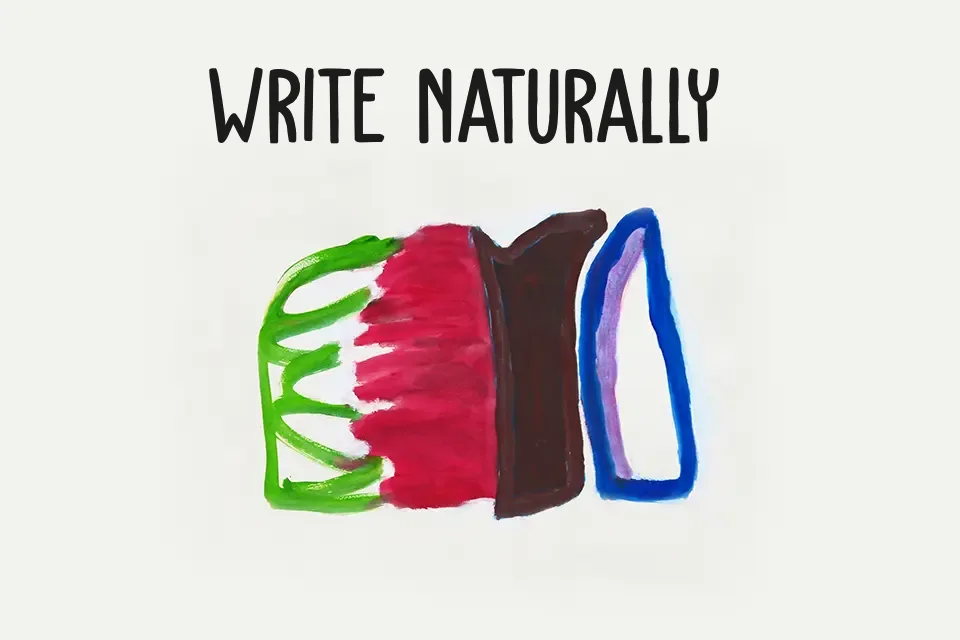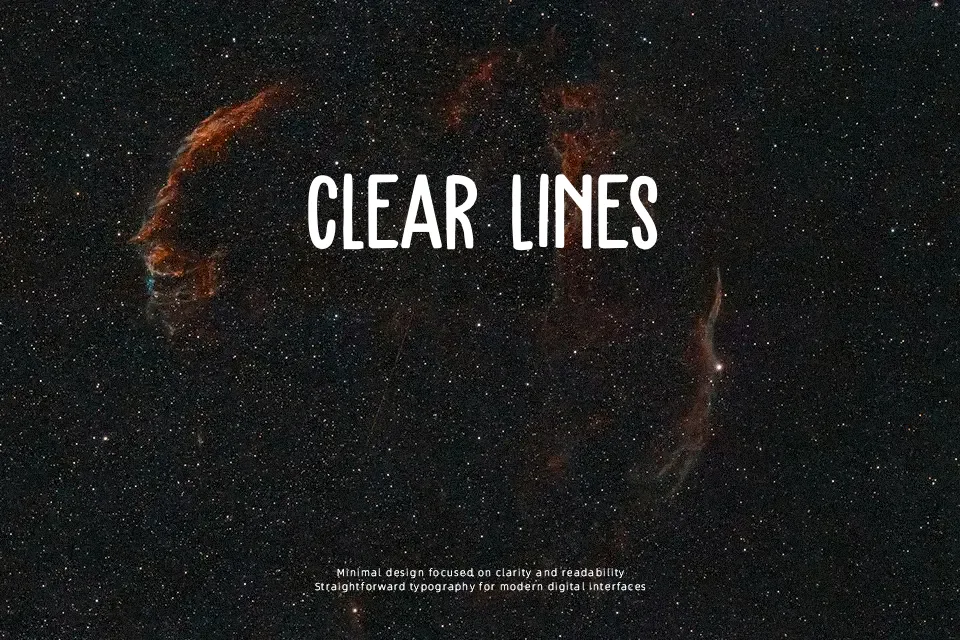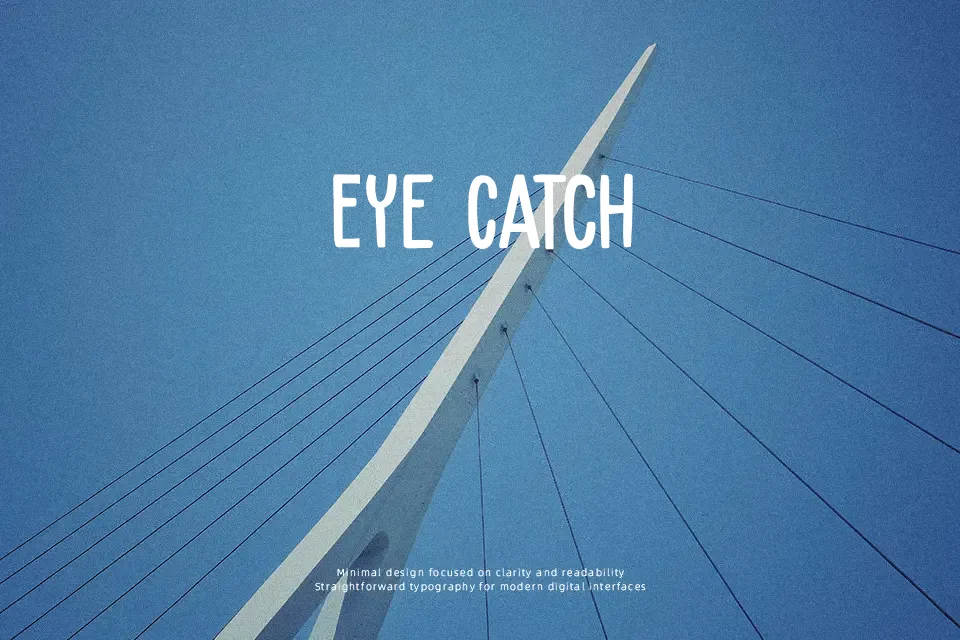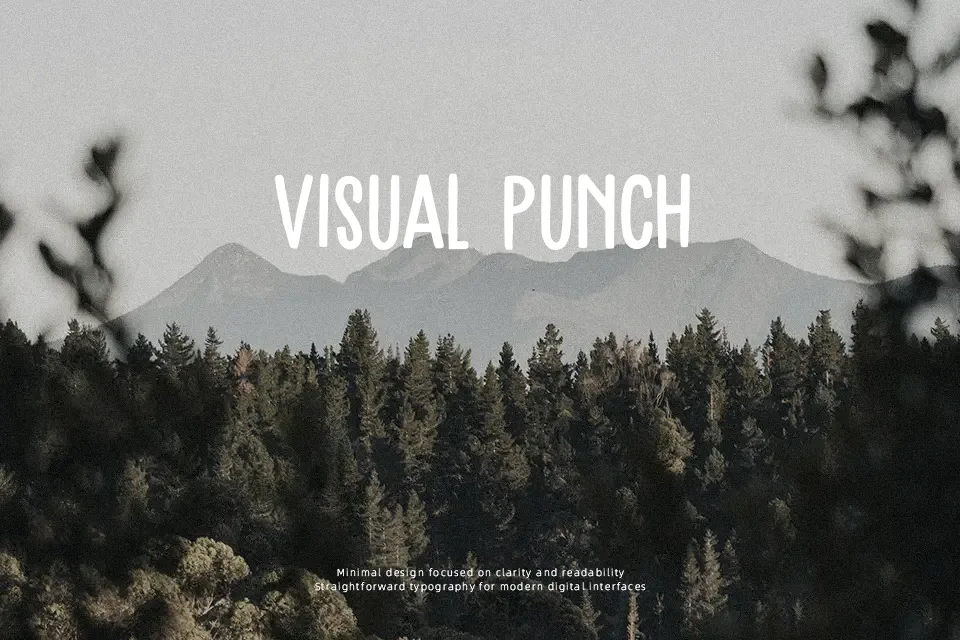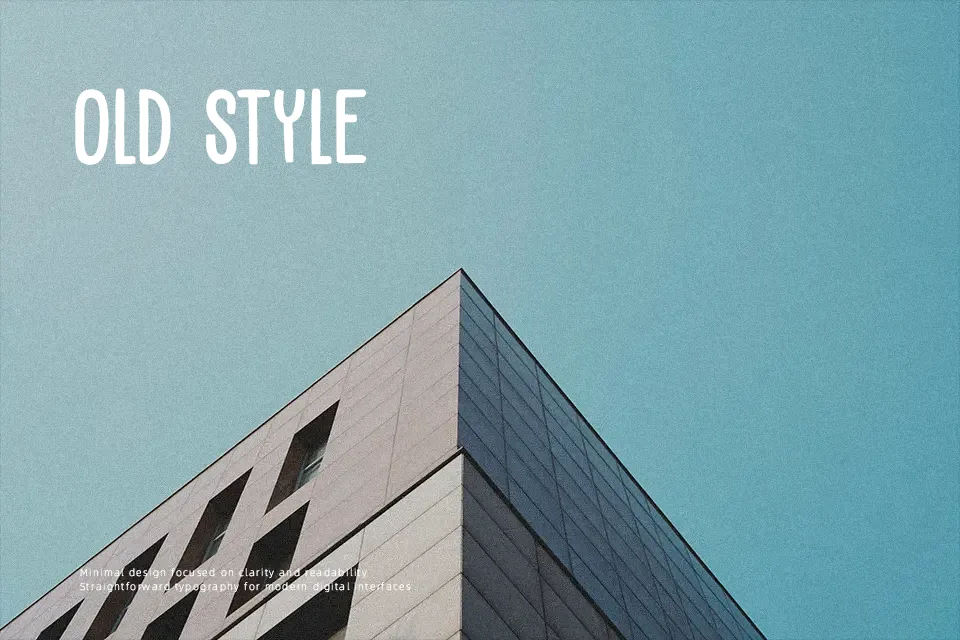
Bearskin Font
At a glance, Bearskin reads like a bold, bouncy cartoon face, with thick irregular strokes, soft corners, and relaxed spacing that make letters feel sketched rather than engineered. The informal structure creates a lively rhythm, so short words and names jump out nicely on posters, thumbnails, and playful logo marks. It carries a clearly decorative mood, leaning more toward fun and character than precision or clarity, which suits kids’ events, hobby projects, and lighthearted social graphics. However, the uneven shapes and demo character set make it tiring and impractical for long text or serious, professional layouts. Use it when you need visual personality in a few words, but switch to a cleaner companion font for body copy or detailed information.
kids party poster titles
cartoon-style logo wordmarks
YouTube thumbnail headlines
interface labels or small UI text
academic or legal reports
Perfect for gaming, headline, and logo, with a artistic and cartoon style.